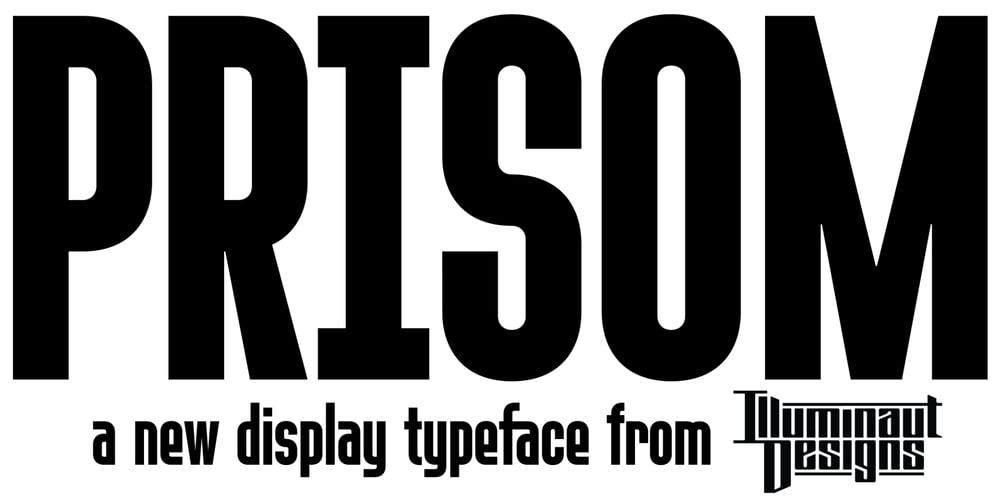
Prisom Font Family was designed by Jesse Smith and published by Illuminaut Designs. Prisom contains 1 styles and family package options. I really wanted to make my own condensed typeface for memes and such. I think i have succeeded. This typeface is so average looking that no one would suspect that it is in fact very radical.